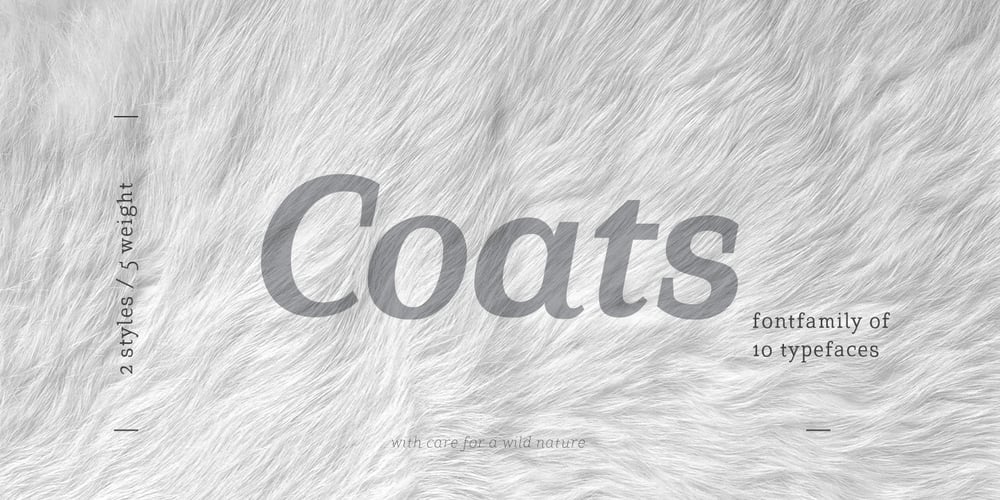
Coats Font Family was designed by TypeType Team and published by Piñata. Coats contains 10 styles and family package options. We’ve created a lively antiqua that is perfect for short emotional inscriptions. Coats will warm you up on a cold day and add a little kindness and easiness into any layout. Lines typed with this typeface start “trembling” in long texts, so be careful to use this family for special occasions and in small amounts. Imagine: on a cold day, you’ve just arrived home from a frosty walk to be rewarded with a cup of hot cocoa topped with marshmallows. We call this feeling the Coats effect. Add to your collection this unique font family that works perfectly in the contemporary digital age.